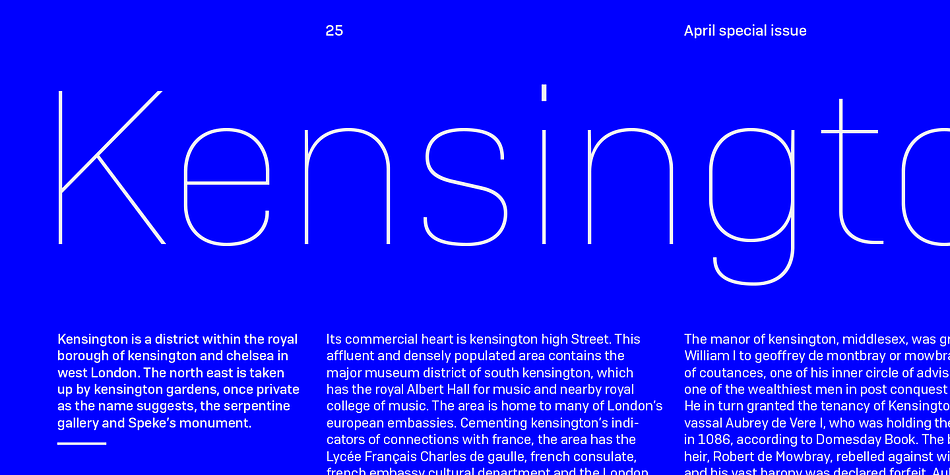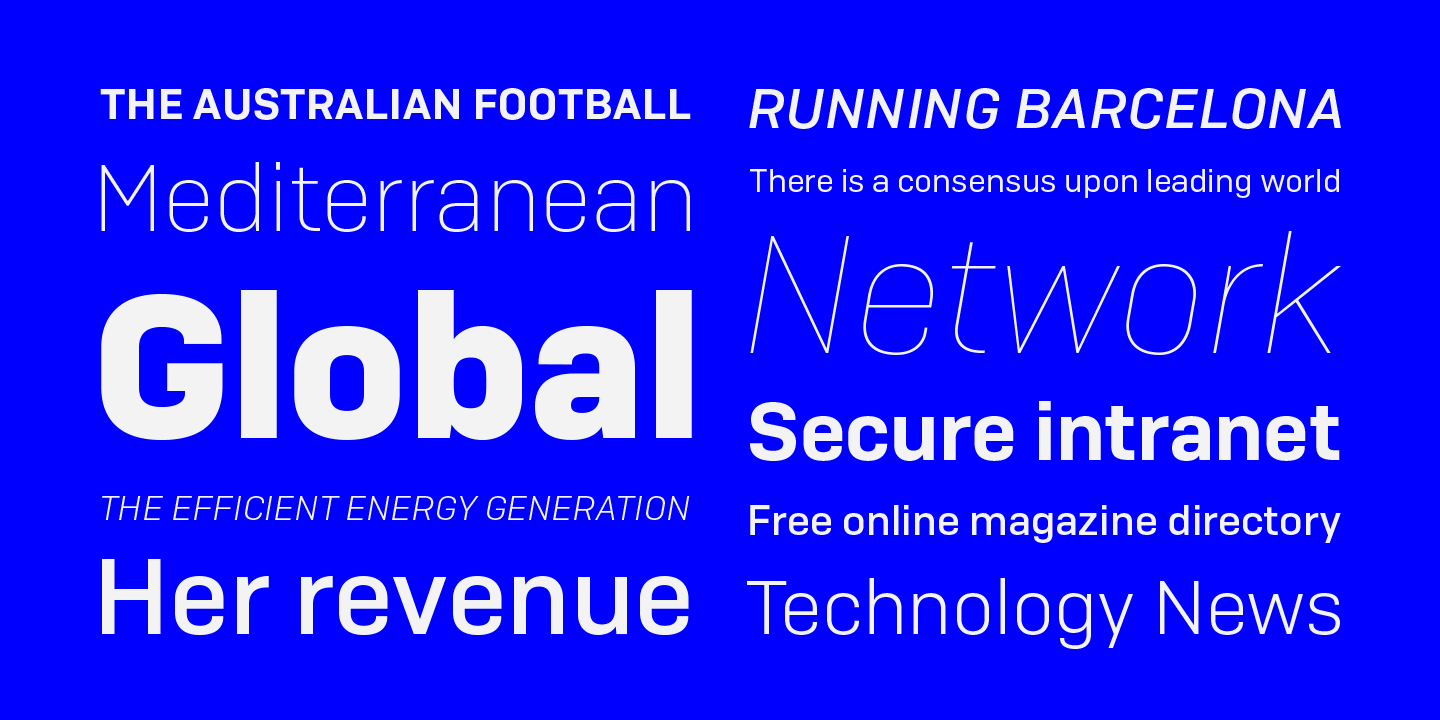
Designed by Eduardo Manso, Camber is a sans serif font family. This typeface has fourteen styles and was published by Emtype Foundry.
Camber is the last in a personal series of squarish sans. It is a noiseless typeface with a geometric base, it has a synthetic and clean design, but with a human sensitivity where the geometry fails. It tries to be more versatile and simpler than its predecessors, with a pragmatic approach, and virtually removing the disturbing elements. The family is generous in width meeting a certain shortage of wider fonts. Camber works well in both display and text, it is a multipurpose font suited for magazine, branding and web.